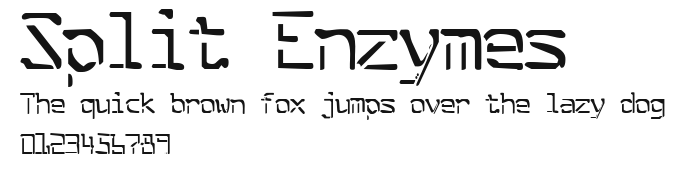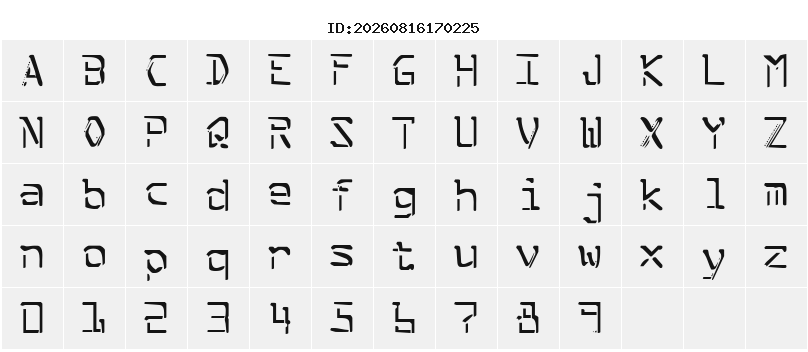
Split Enzymes Preview
• Font Name: Split Enzymes
• Full Font Name: Split Enzymes
• PostScript Name: SplitEnzymes
About Split Enzymes.ttf
Split Enzymes.ttf is a modern, elegant sans-serif font designed for ultimate readability and visual harmony. Perfect for branding, headlines, web design, and print materials.